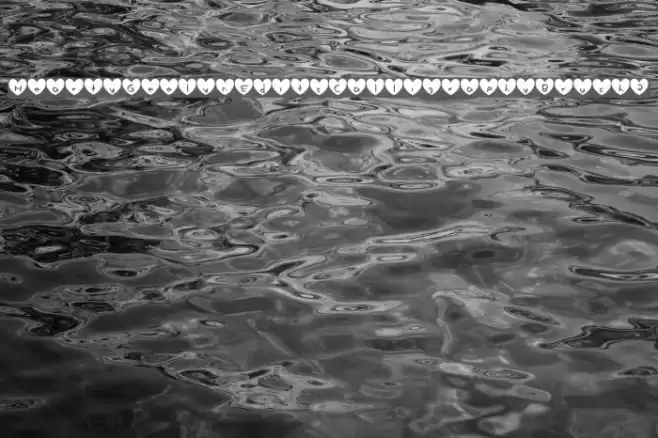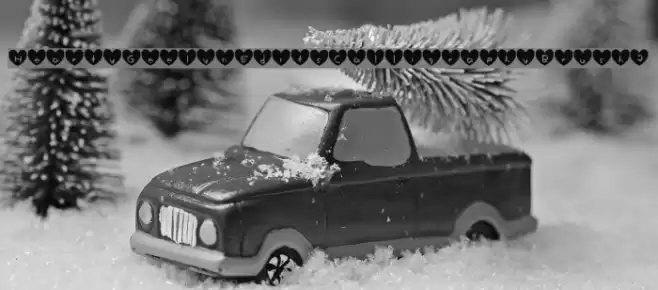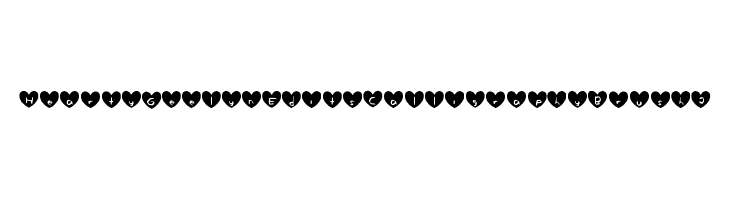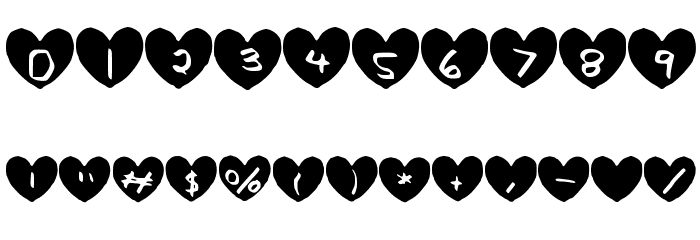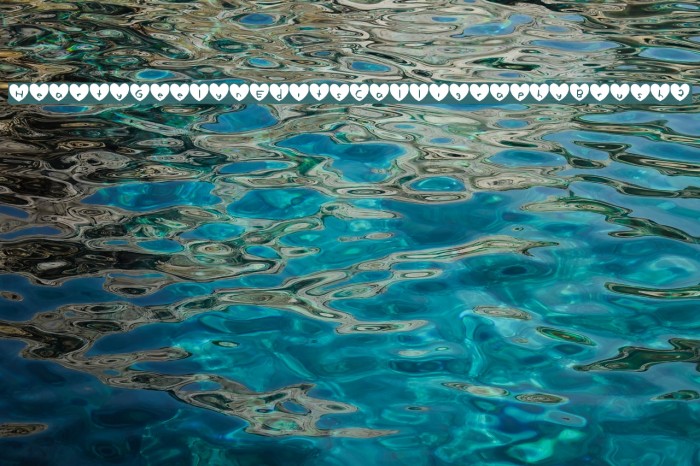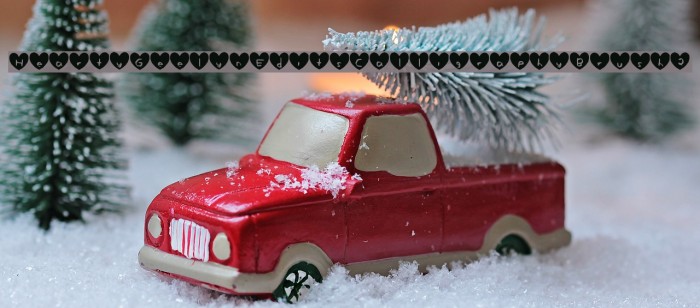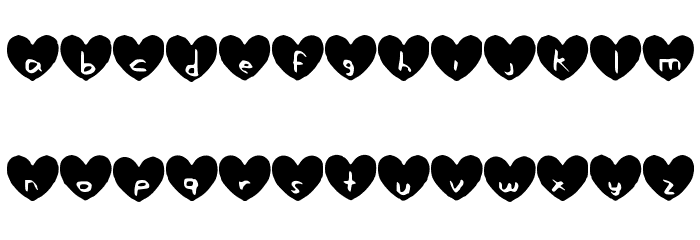
Hearty_Geelyn_Edits_Calligraphy_Brush_2 Font
Hearty_Geelyn_Edits_Calligraphy_Brush_2 Description
This playful and decorative font features characters enclosed within heart shapes, creating a unique and whimsical appearance. The letters and numbers are bold and clear, making them easily readable despite the decorative elements. The font combines a sense of fun with a touch of elegance, making it suitable for creative and romantic projects. The heart motif is consistent across all characters, providing a cohesive look. This font is perfect for designs that require a charming and affectionate touch.
A decorative font with characters enclosed in heart shapes, offering a playful and romantic style from Uncategorized fonts.
- Proposed Projects: Ideal for Valentine's Day cards, wedding invitations, love-themed posters, and playful branding projects.